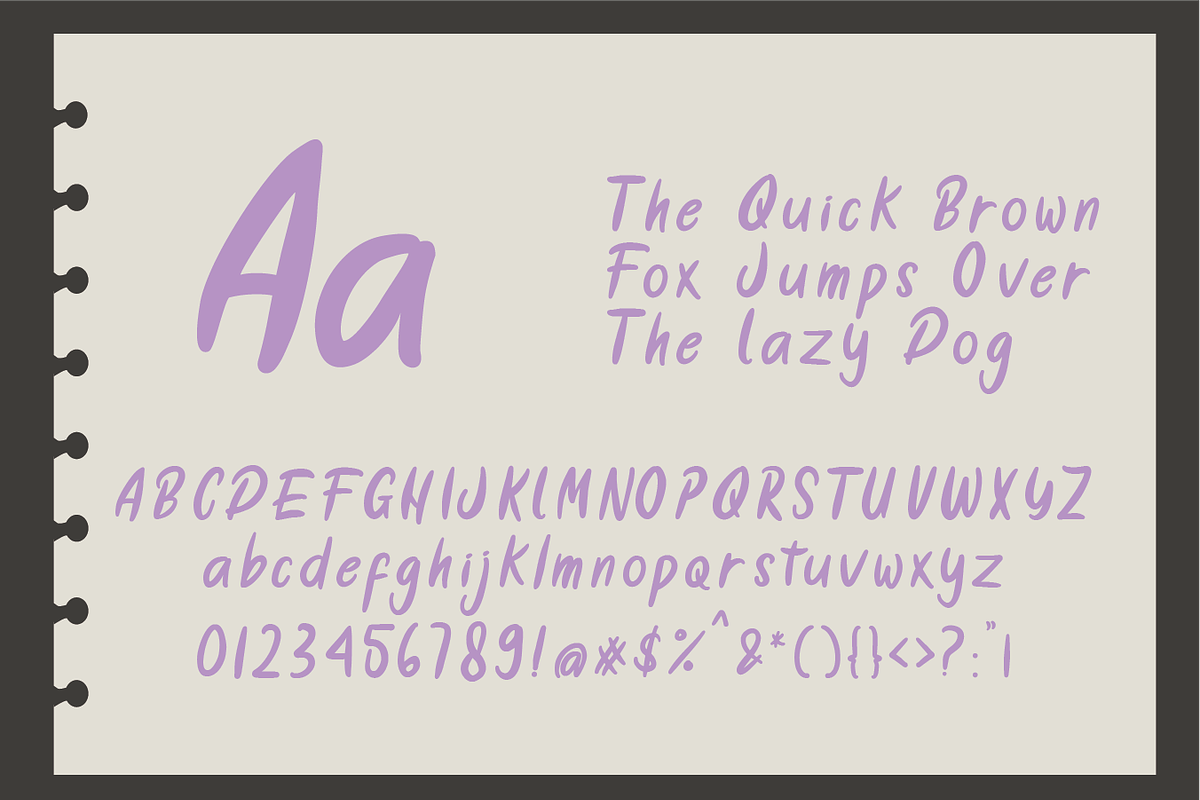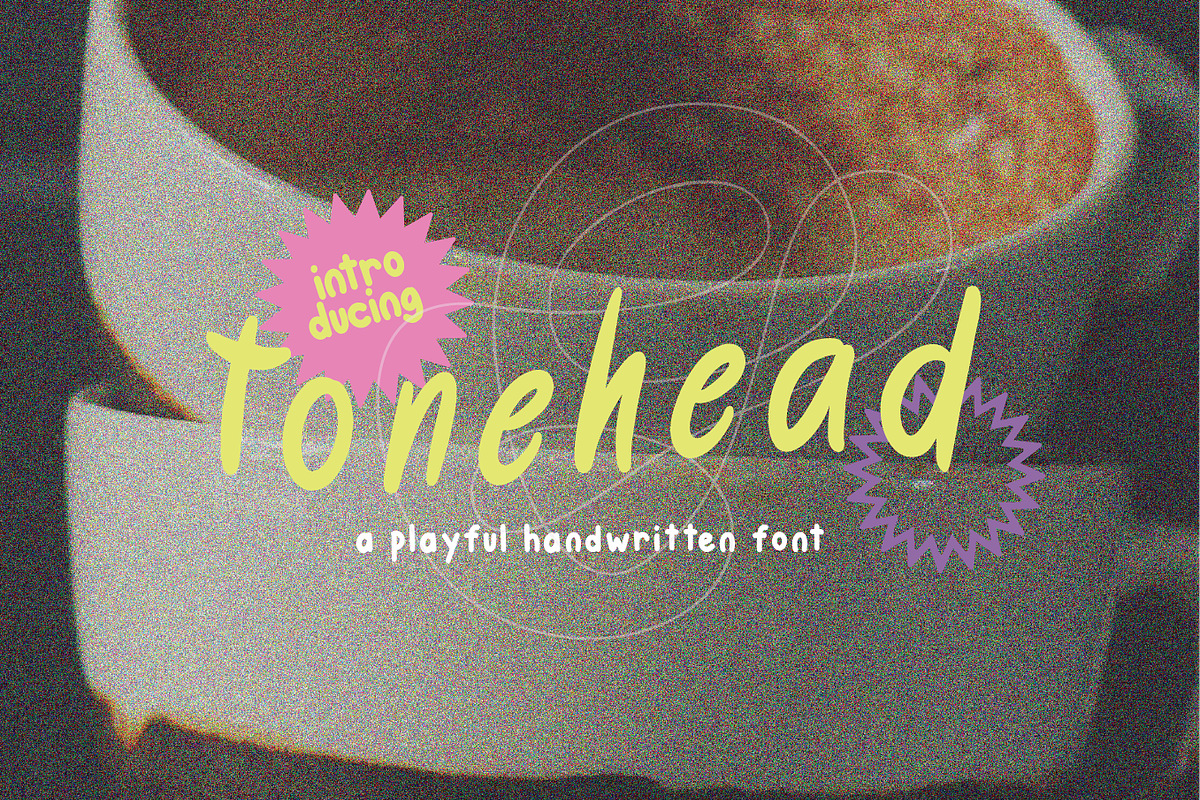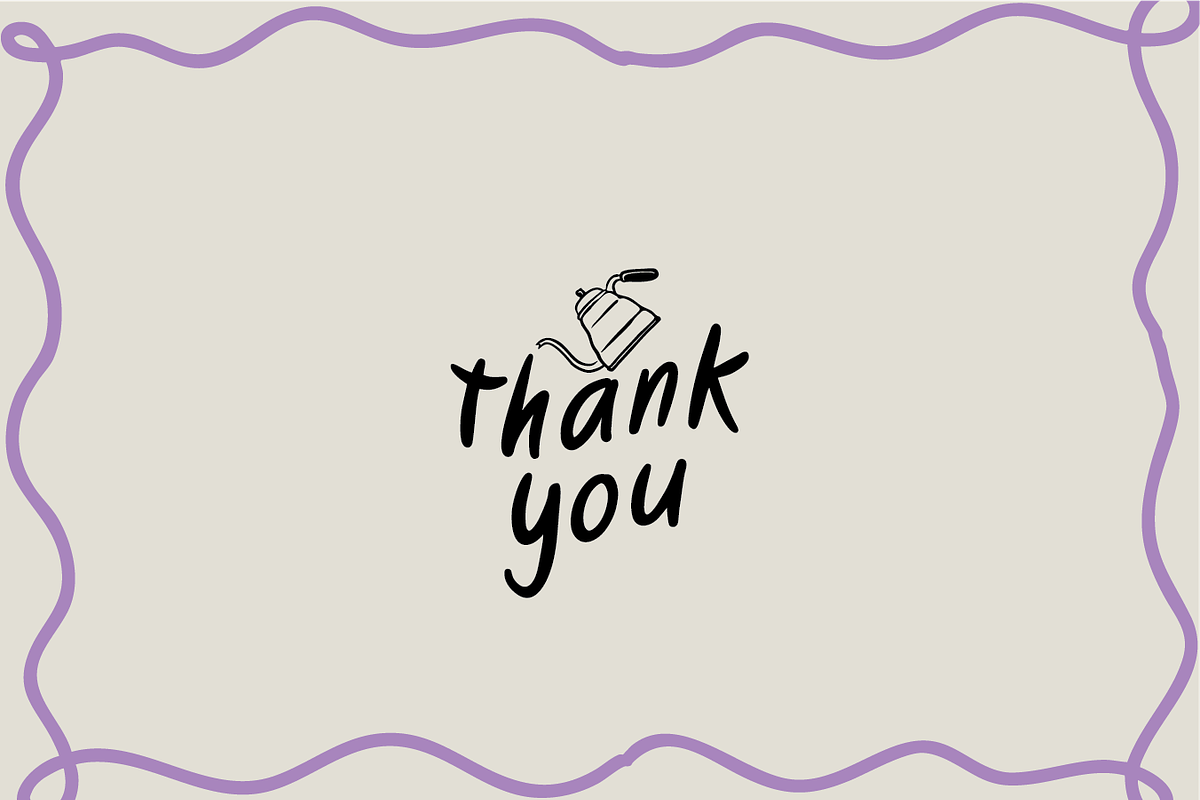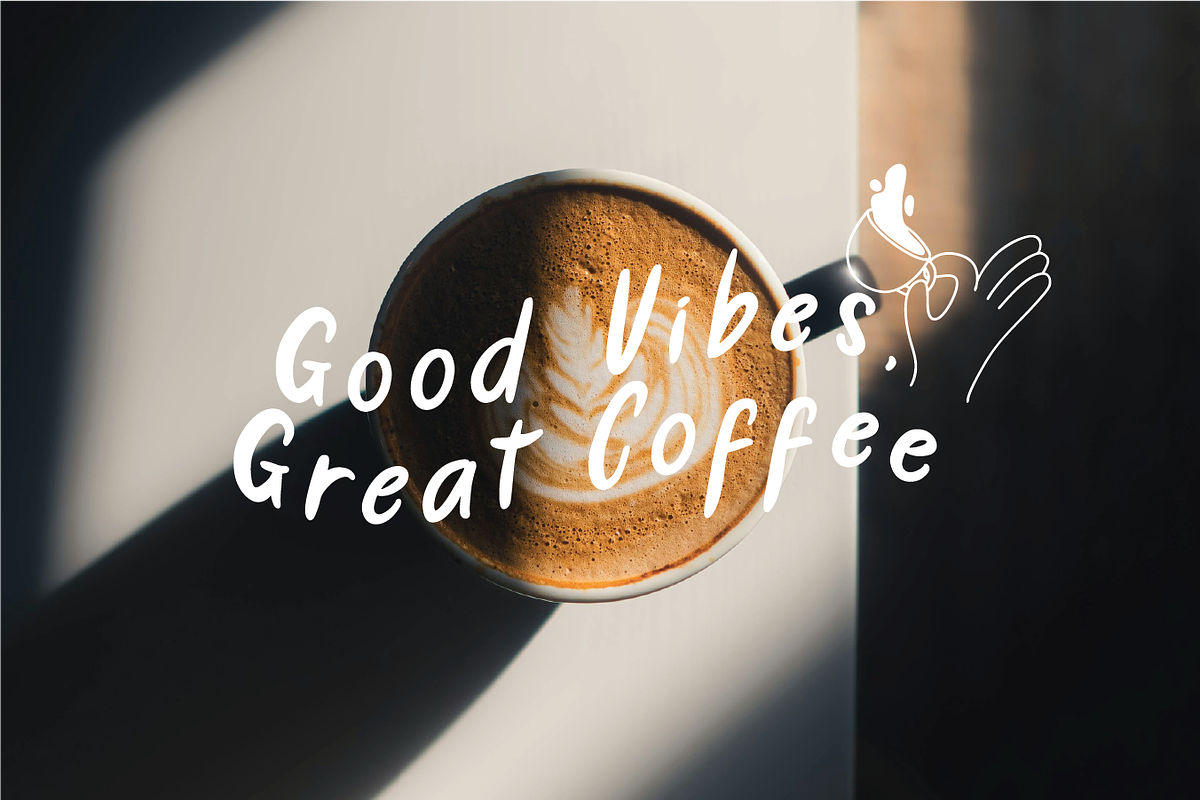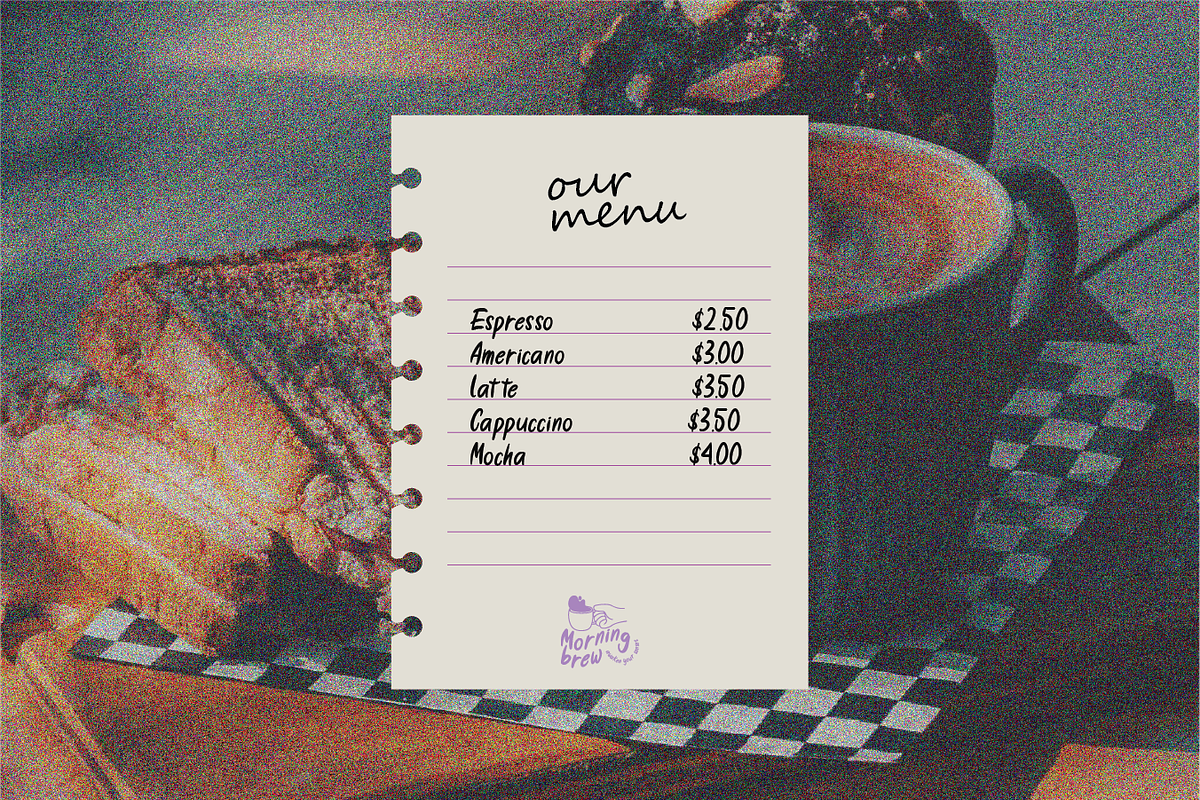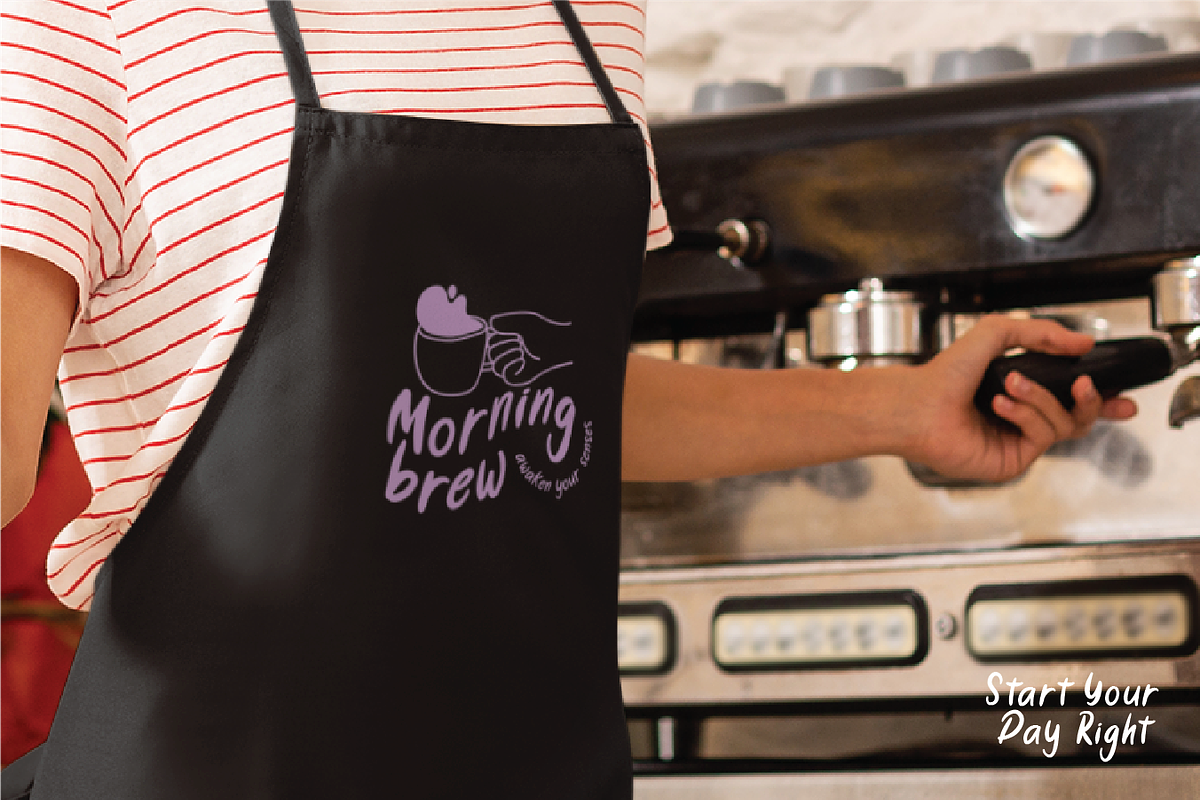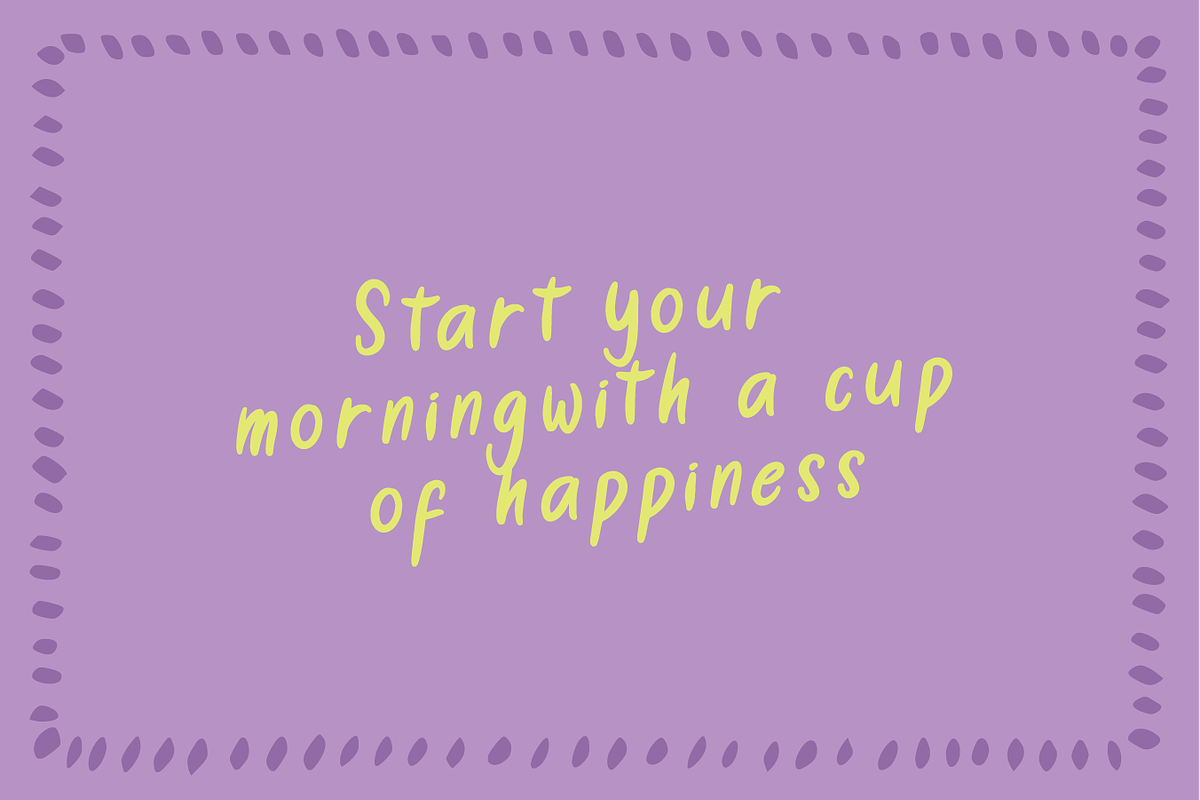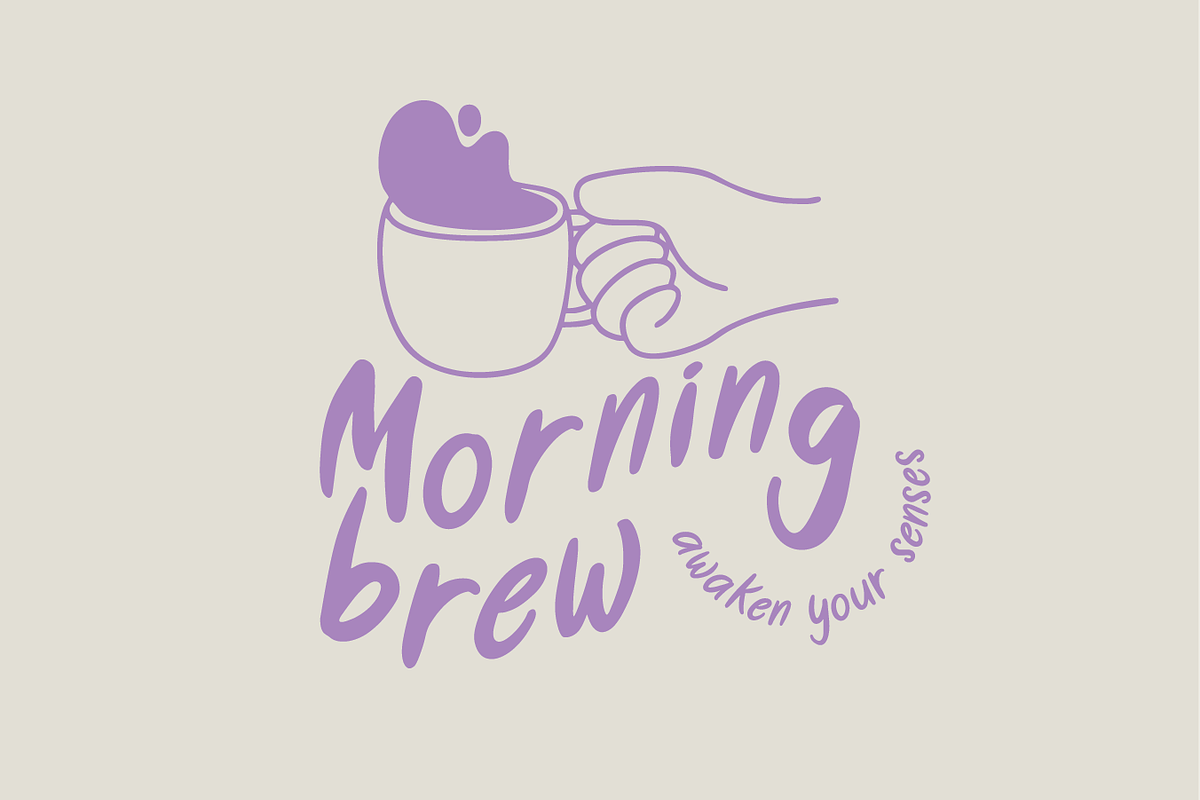
Tonehead - Playful Handwritten Font
Tonehead The font has a bold, energetic, and slightly quirky appearance. The flowing, rounded letters give it a relaxed and creative vibe, while the playful curves in the letterforms add a sense of movement and fun.
- Numbers, marks and symbols